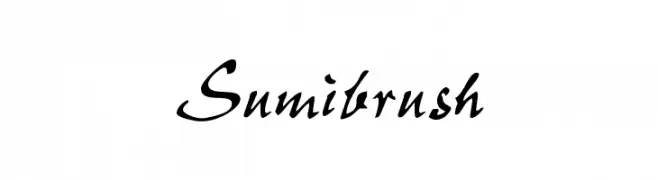
A playful, bold font with a beach-inspired vibe, perfect for fun projects.
A bold, modern sans-serif font with clean lines and geometric shapes.
An elegant script font with flowing cursive style and intricate swashes.
An elegant script font with decorative swirls and modern flair.
An elegant script font with flowing, cursive strokes and sophisticated style.
A lively and elegant script font with flowing, cursive letterforms.
An elegant script font with flowing, cursive style and delicate loops.
A modern, cursive font with a playful and elegant style.
A playful and elegant script font with flowing, cursive design.
A bold, dynamic script font with fluid, cursive letterforms and medium contrast.
A playful, bold font with rounded uppercase and cursive lowercase letters.
A dynamic, cursive script font with expressive, flowing strokes.
An elegant, flowing script font with graceful curves and a sophisticated slant.
A bold, flowing script font with elegant, interconnected letters.
A fluid and elegant script font with smooth, flowing lines and graceful curves.
A flowing, cursive script font with elegant, interconnected strokes.
An elegant, flowing cursive font with ornate uppercase and graceful lowercase letters.
A bold, elegant cursive font with high contrast and flowing style.
A modern, rounded sans-serif font with a friendly and approachable style.
A lively and elegant script font with fluid, connected letterforms.
A graceful script font with elegant, flowing letters reminiscent of classic calligraphy.
( Fonts by Makashi - Maqsum Kamil - Personal-use only. For commercial use please contact owner. )
A dynamic and expressive script font with fluid, cursive strokes.
( Fonts by Makashi - Maqsum Kamil - Personal-use only. For commercial use please contact owner. )
A bold, expressive script font with flowing cursive letterforms.
( Fonts by Makashi - Maqsum Kamil - Personal-use only. For commercial use please contact owner. )
A lively, handwritten script font with medium contrast and elegant flourishes.
( Fonts by Makashi - Maqsum Kamil - Personal-use only. For commercial use please contact owner. )
A graceful and sophisticated script font with flowing, interconnected letters.
( Fonts by Makashi - Maqsum Kamil - Personal-use only. For commercial use please contact owner. )
A playful, bold handwritten font with rounded edges and thick strokes.
( Fonts by Makashi - Maqsum Kamil - Personal-use only. For commercial use please contact owner. )
A playful, rounded font with a hand-drawn appearance.
( Fonts by Makashi - Maqsum Kamil - Personal-use only. For commercial use please contact owner. )
A playful and elegant script font with a handwritten style.
( Fonts by Makashi - Maqsum Kamil - Personal-use only. For commercial use please contact owner. )
An elegant, flowing script font with smooth curves and consistent strokes.
An elegant, flowing script font with graceful curves and decorative flourishes.
A charming script font with a playful, handwritten style.